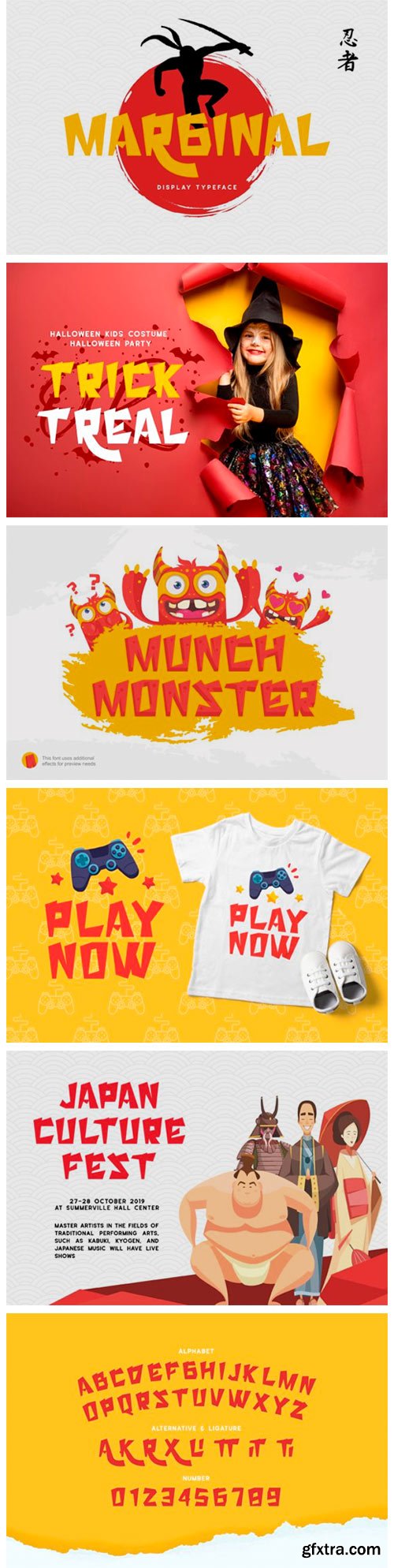
Marginal Font
Marginal is a great display font with incredibly versatile usage. It’s usable for both sports-themed designs, as well as comics, cartoons or any kids’ content!